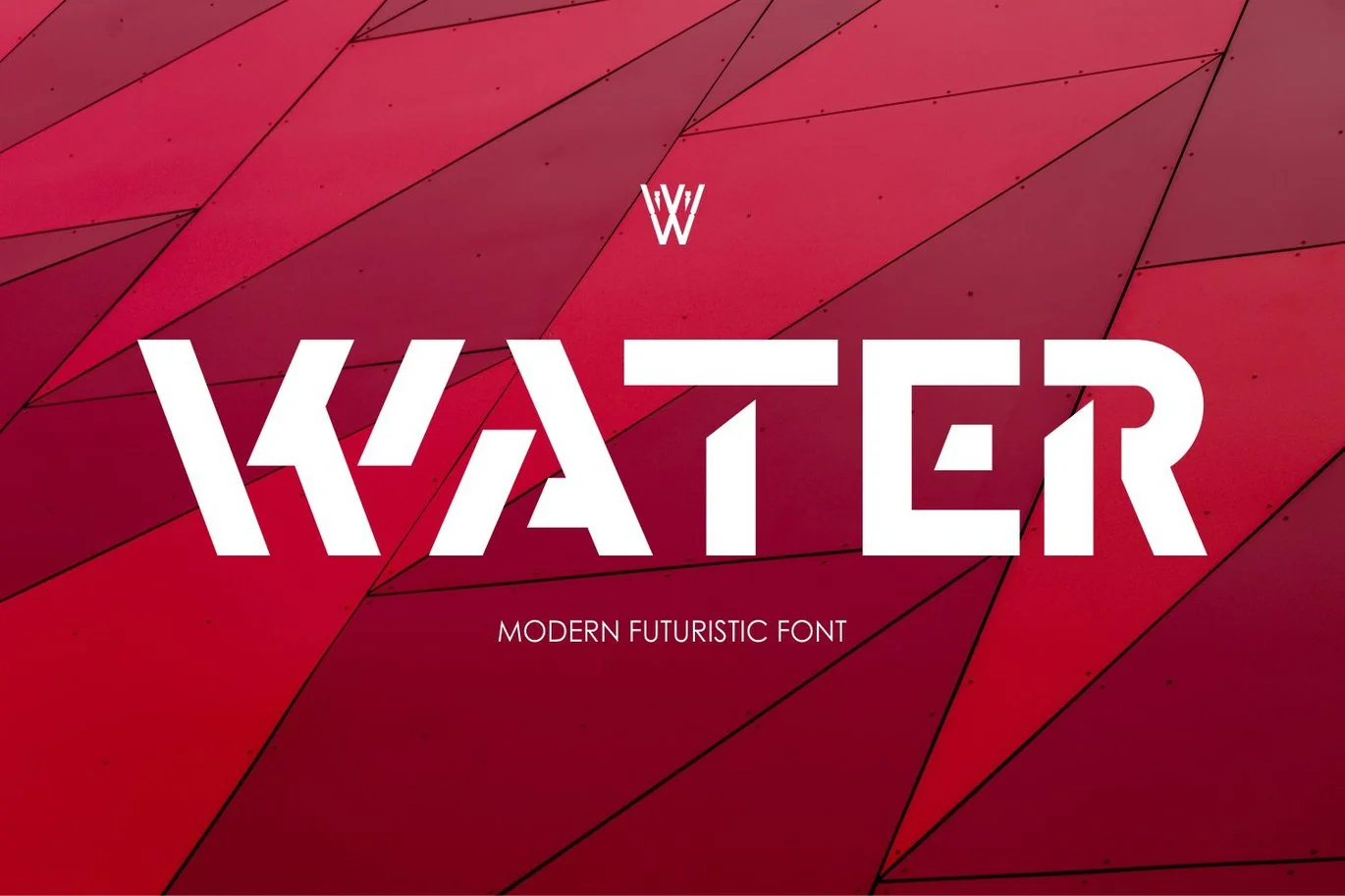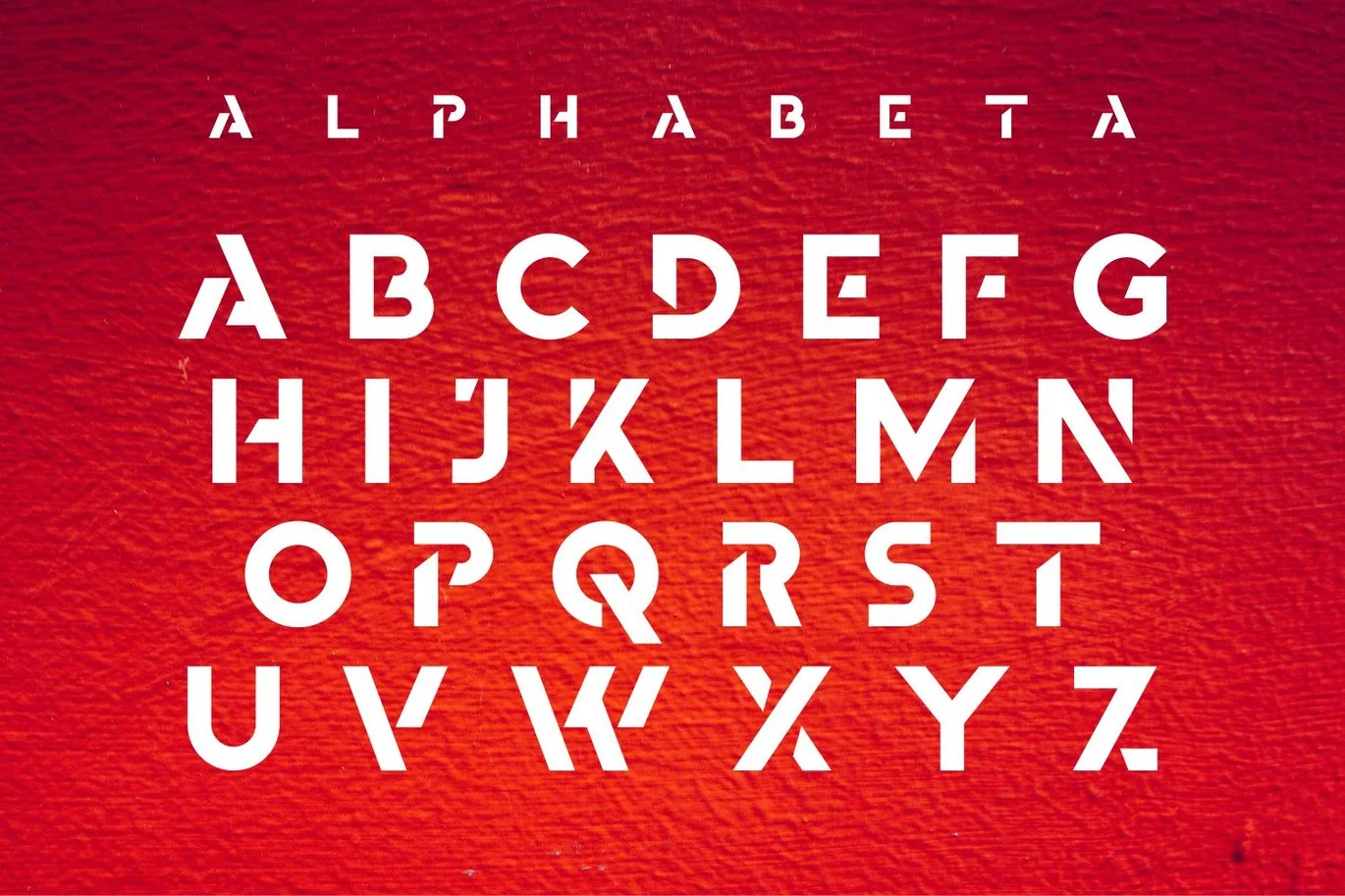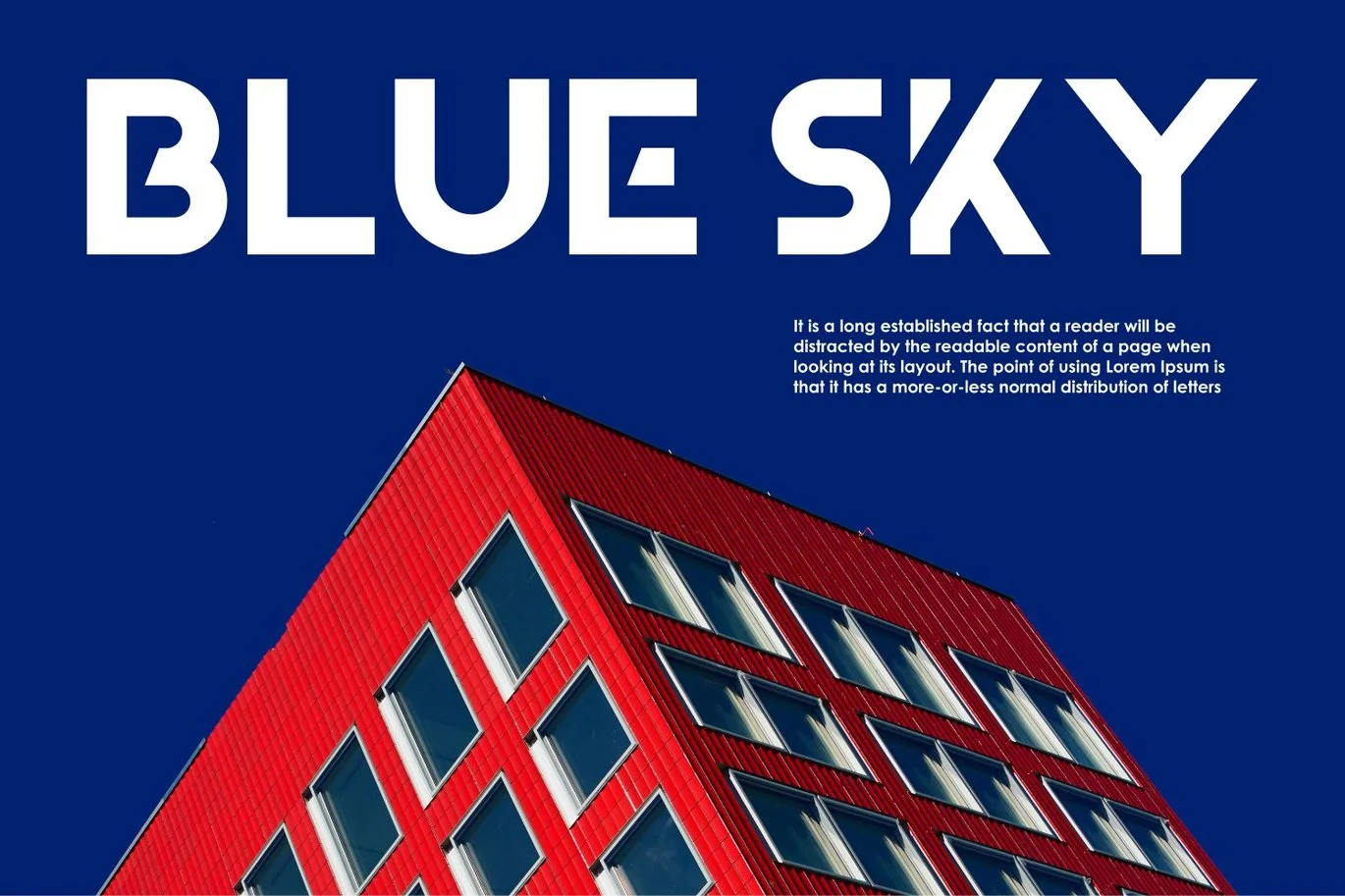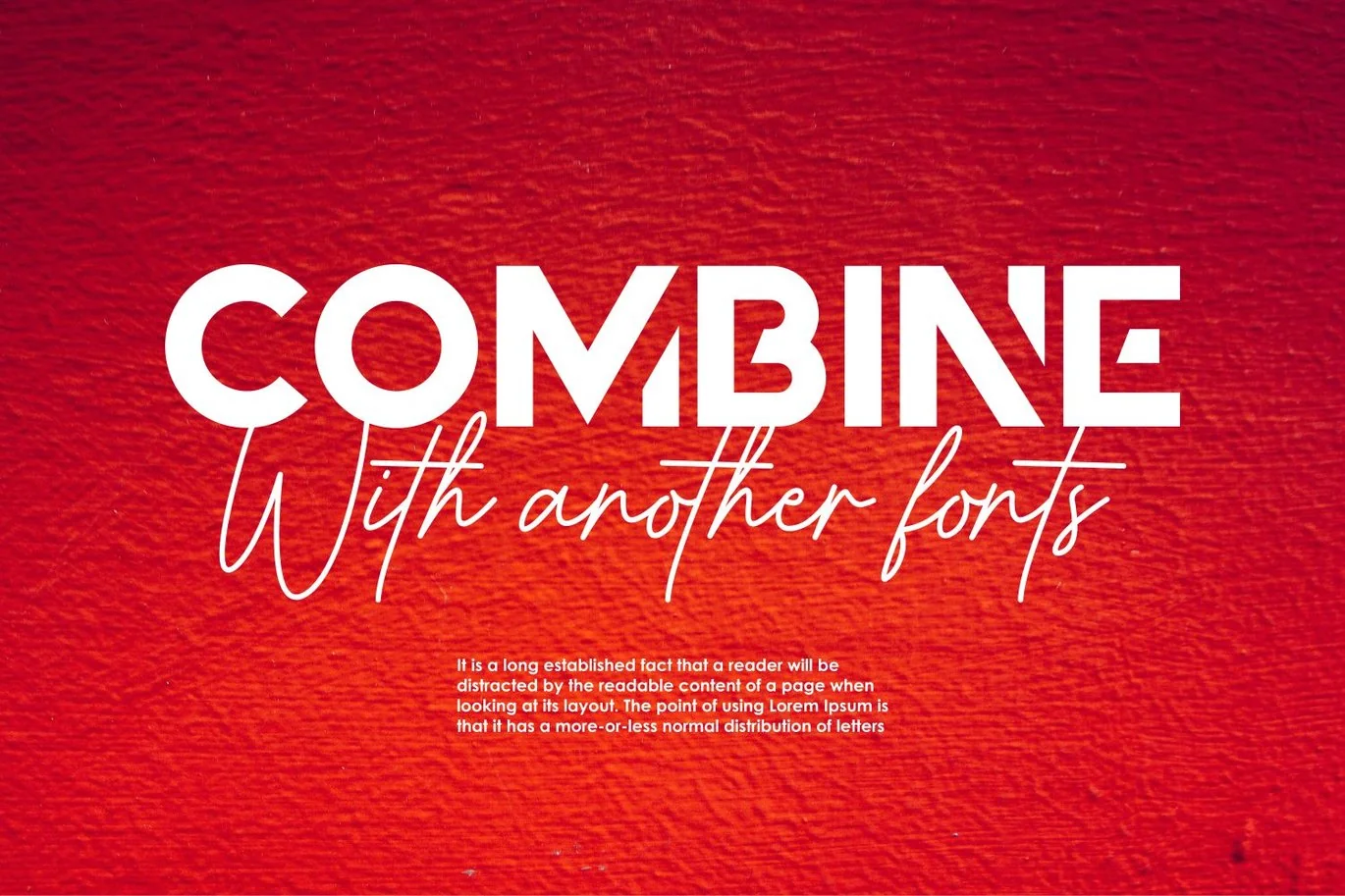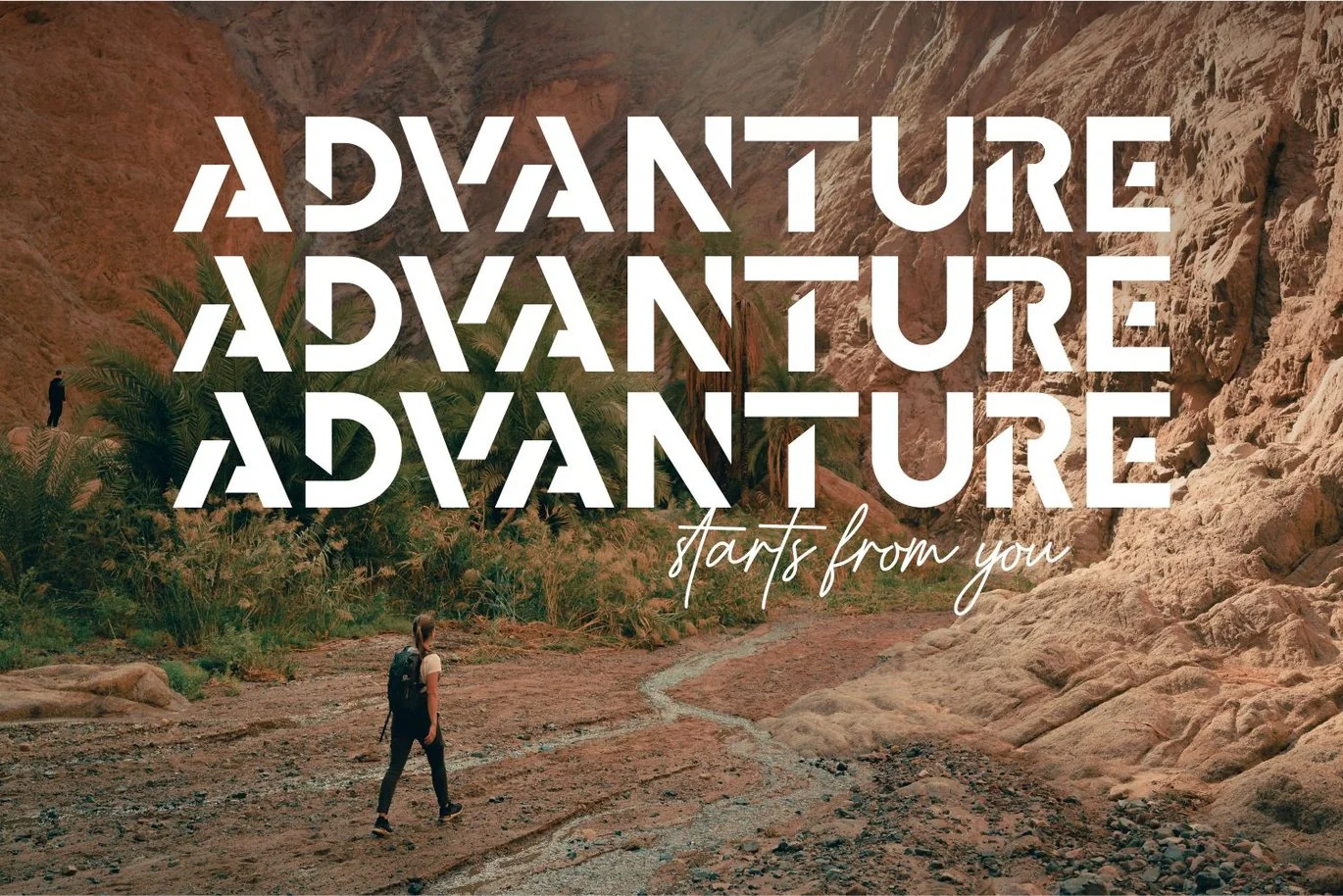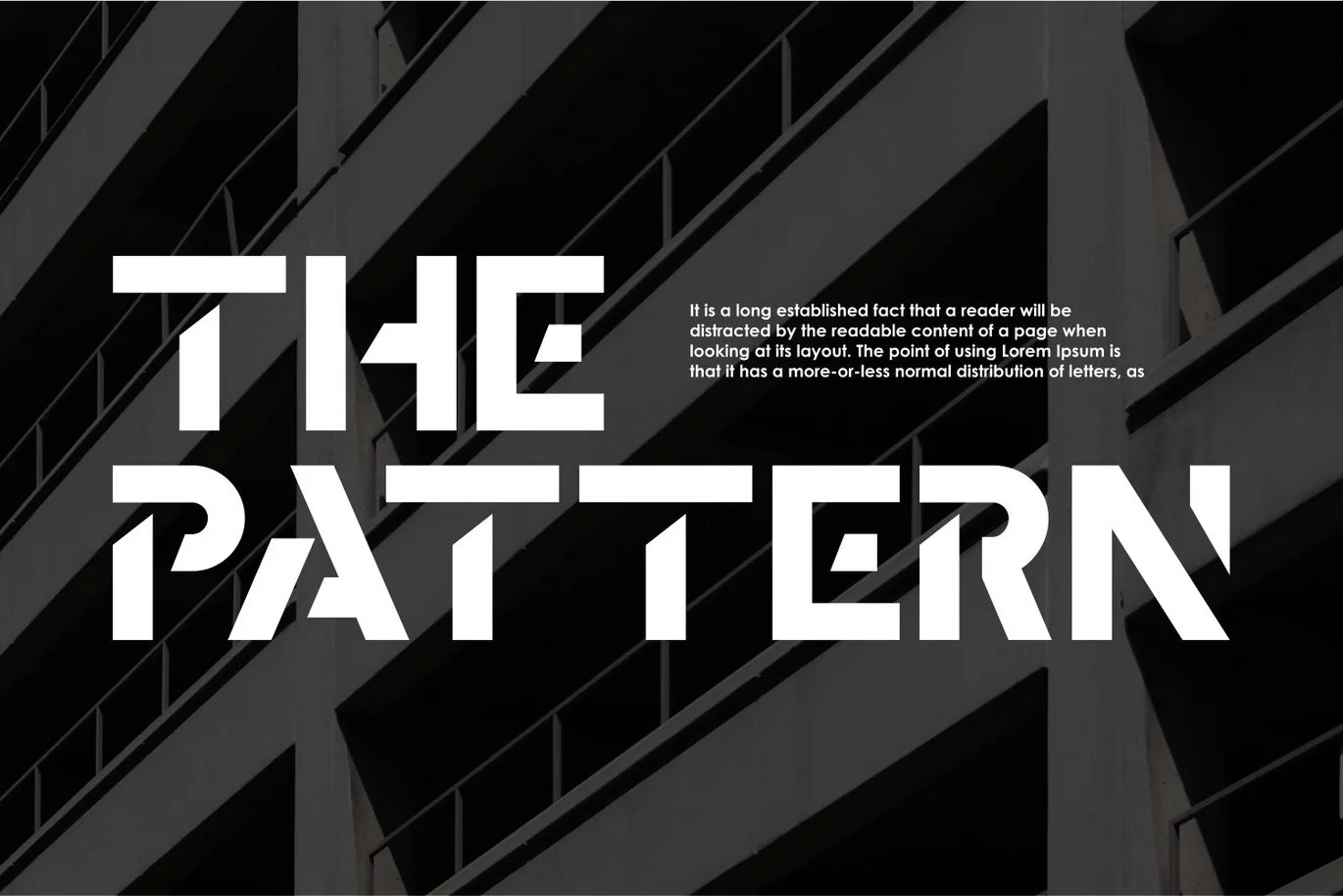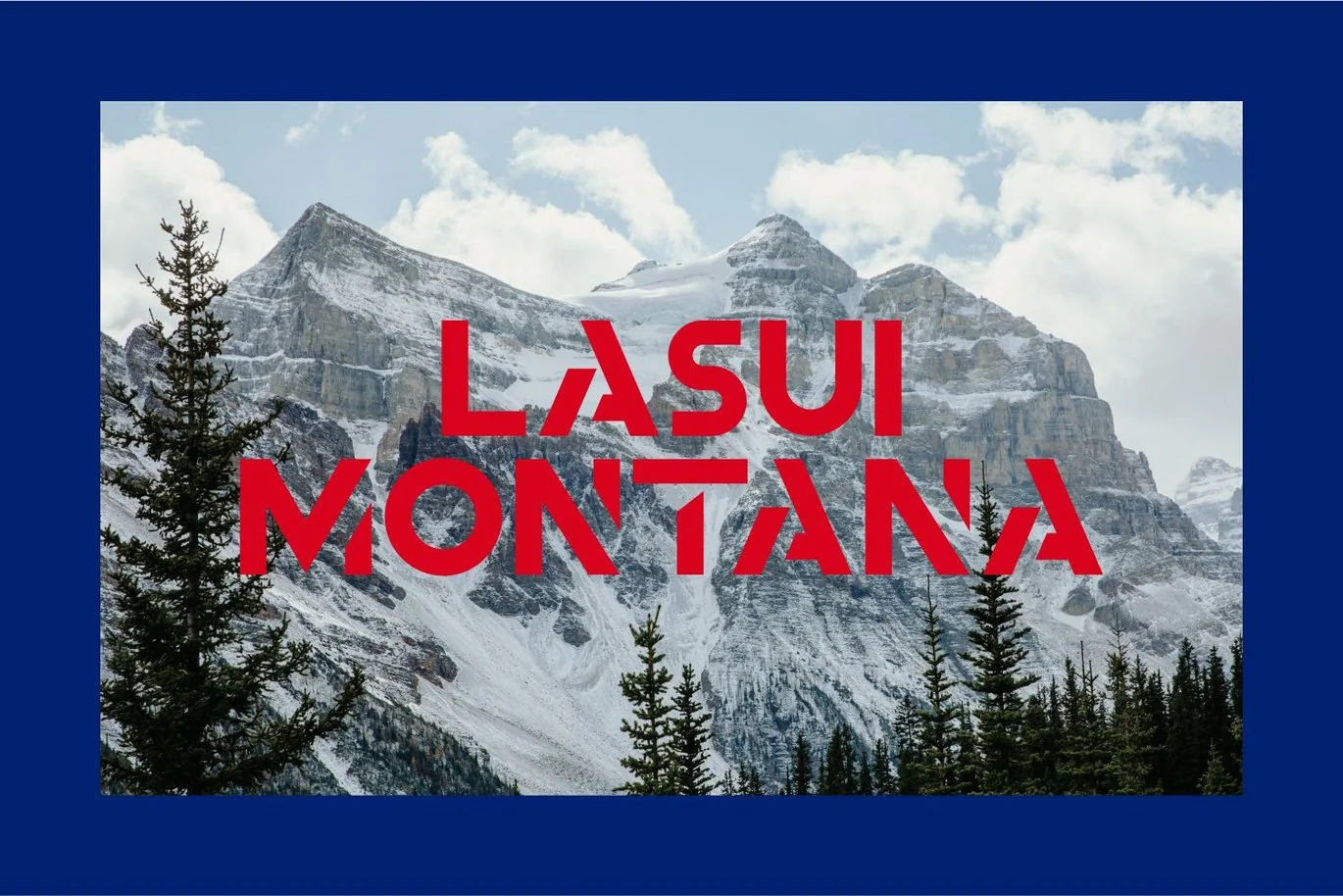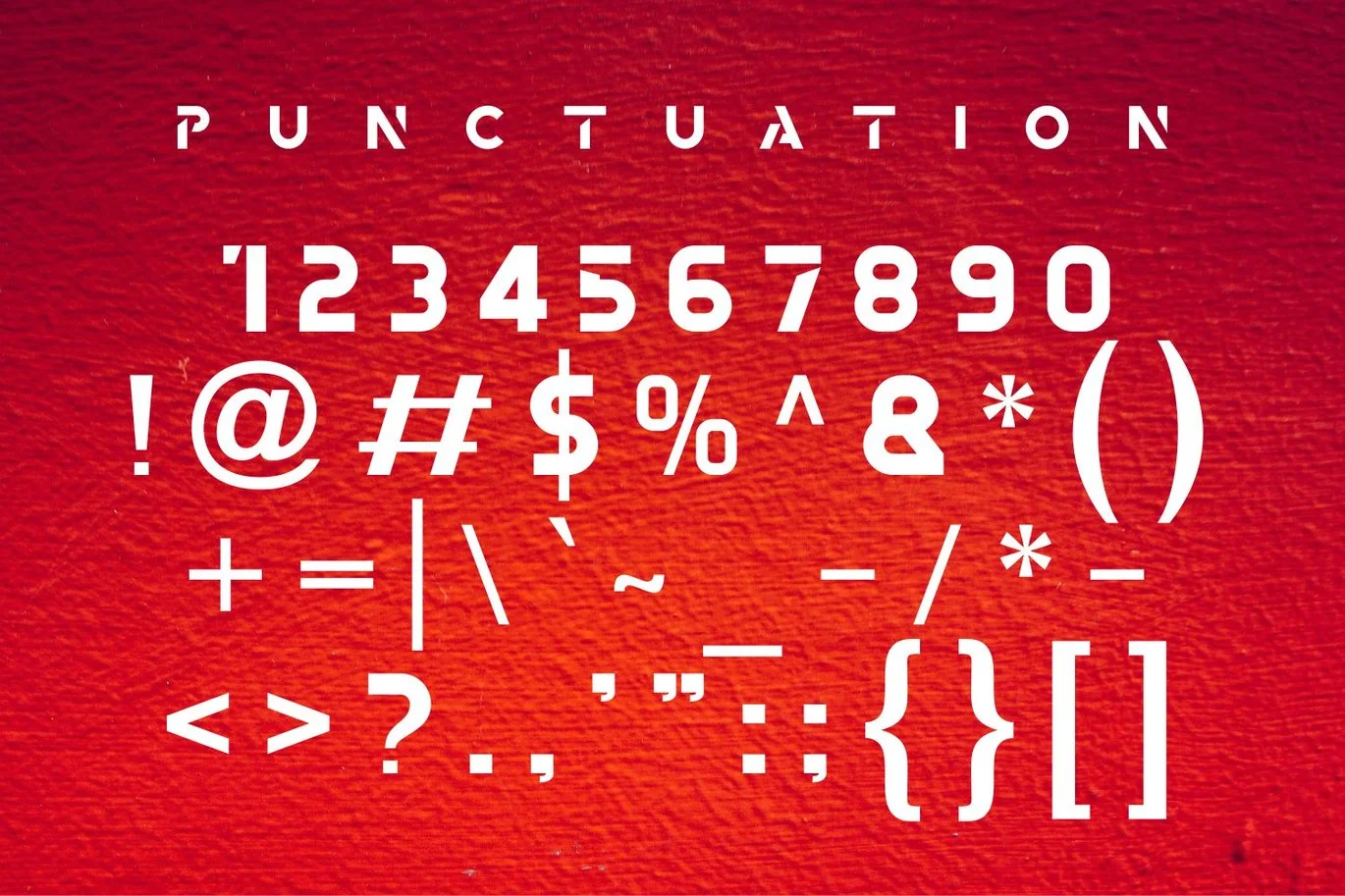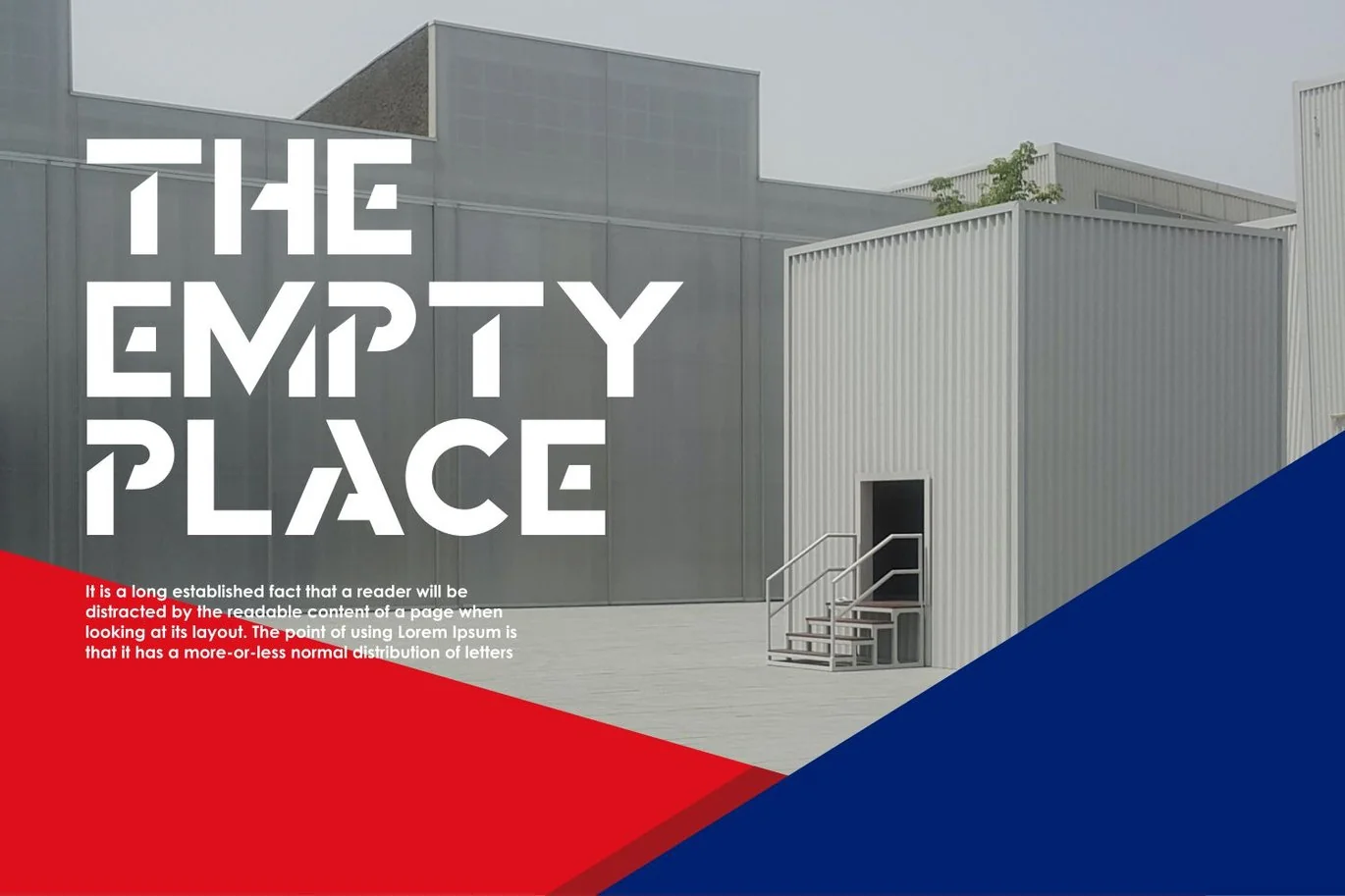
Water | Futuristic font
Water is a font with themes of futuristic, technological advancement, cyber punk, and sharpness and decoration in a form that depicts minimalist splendor in one font form together.
Water font is inspired by the elegance presented in each shape that wants to invite designers, creators and font users to look far into the future.